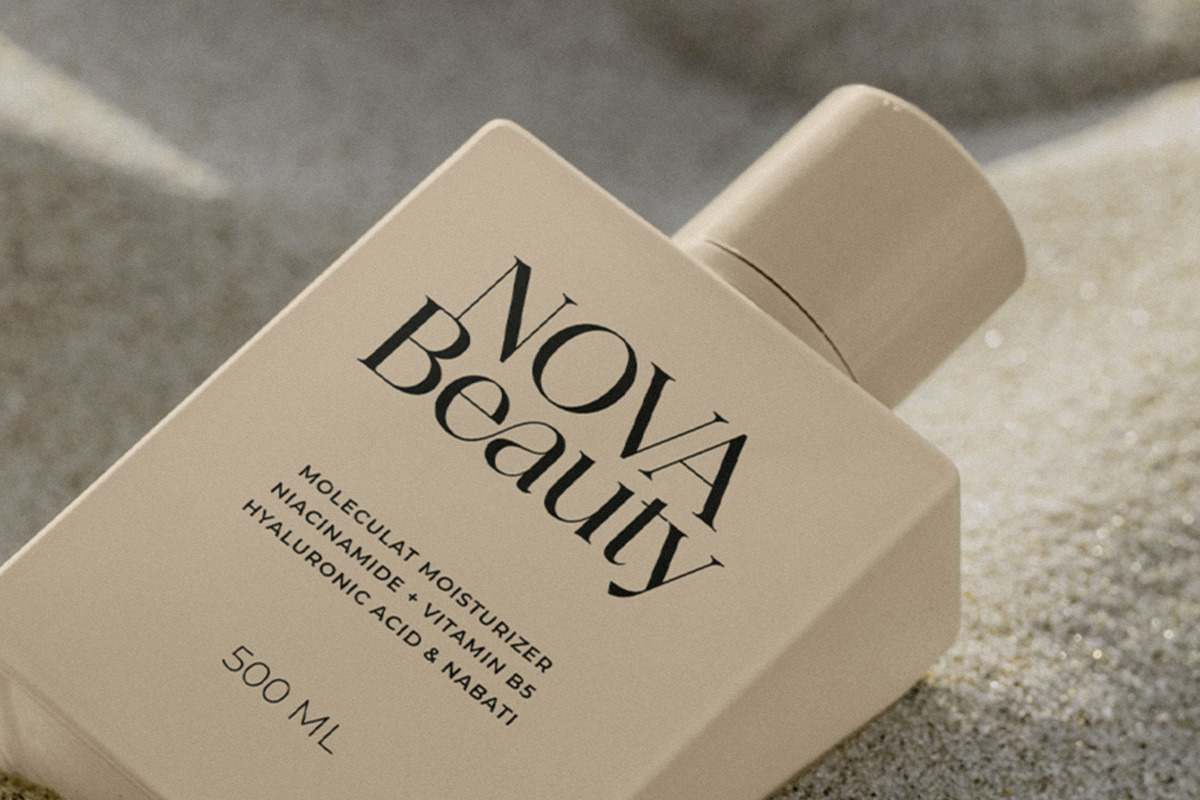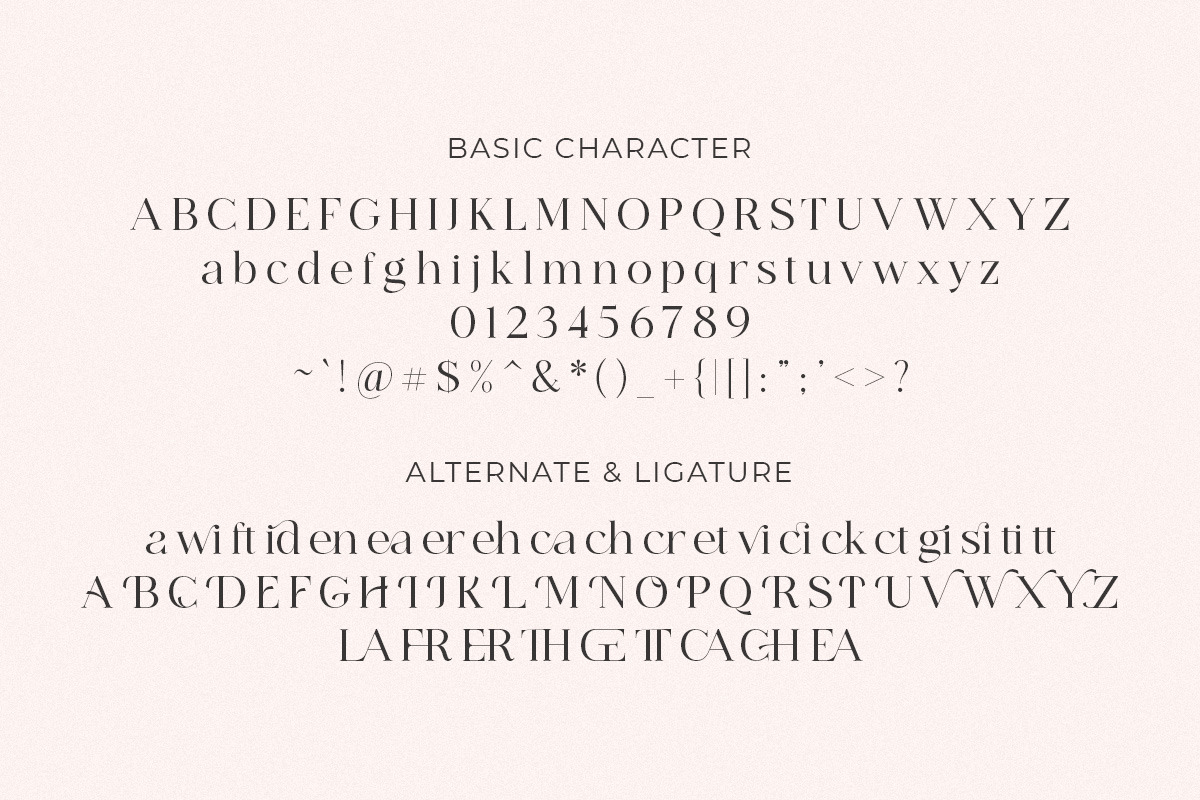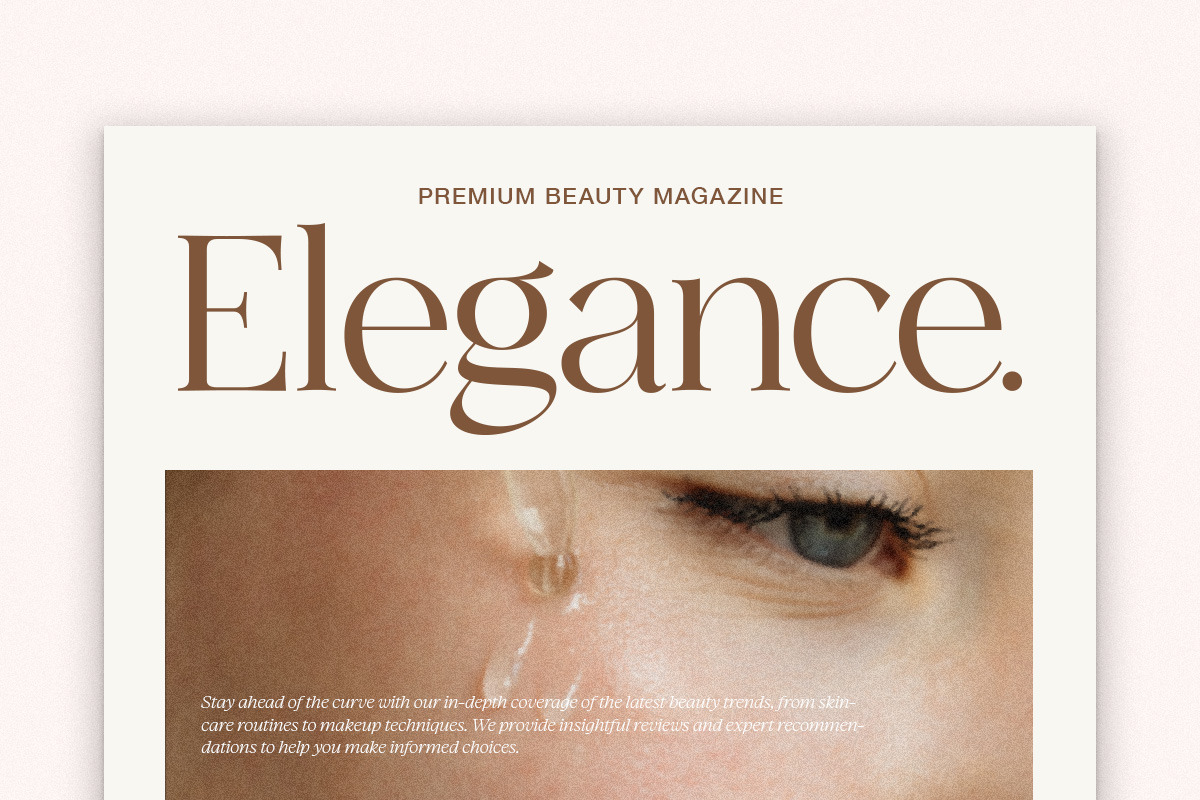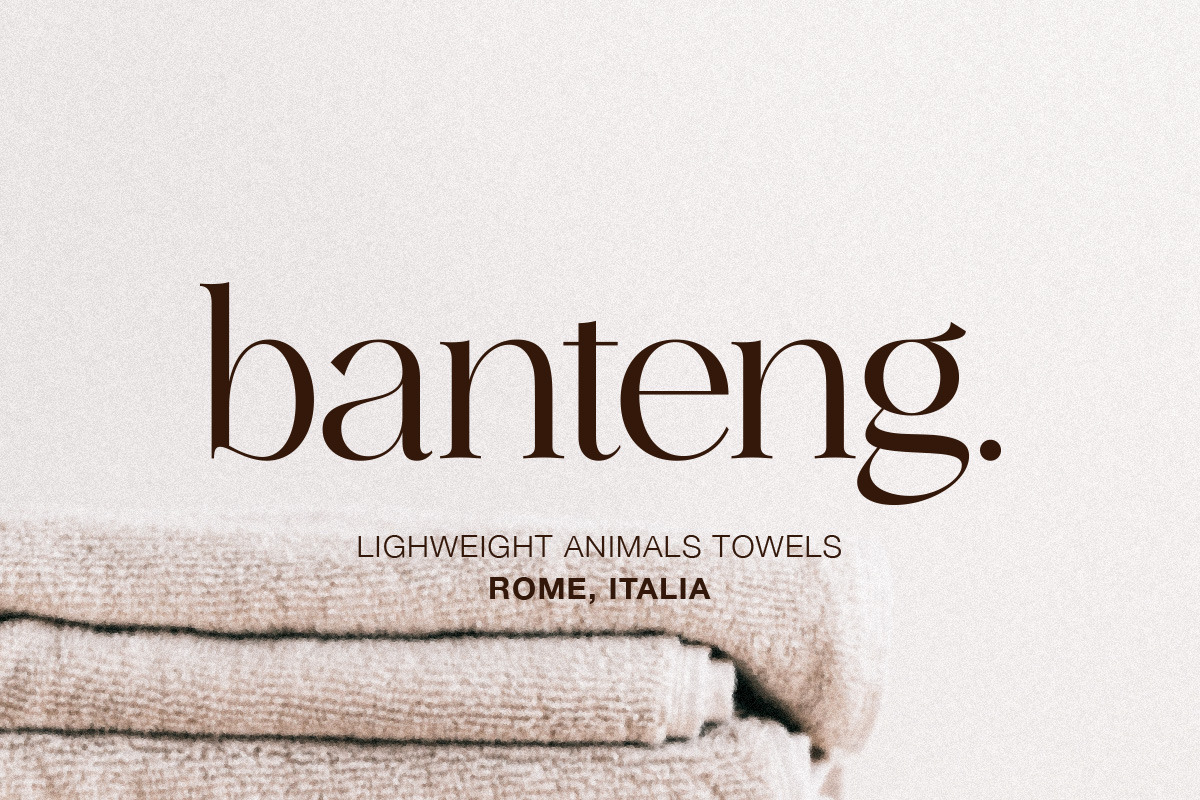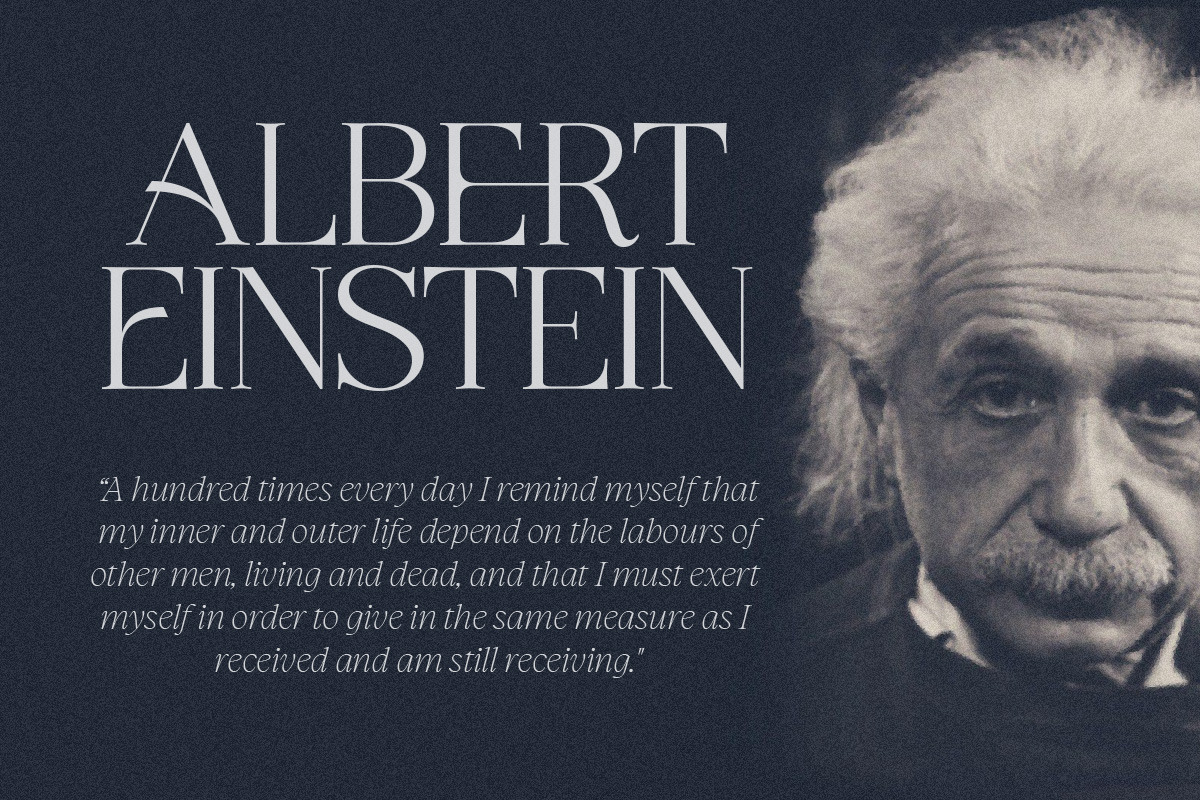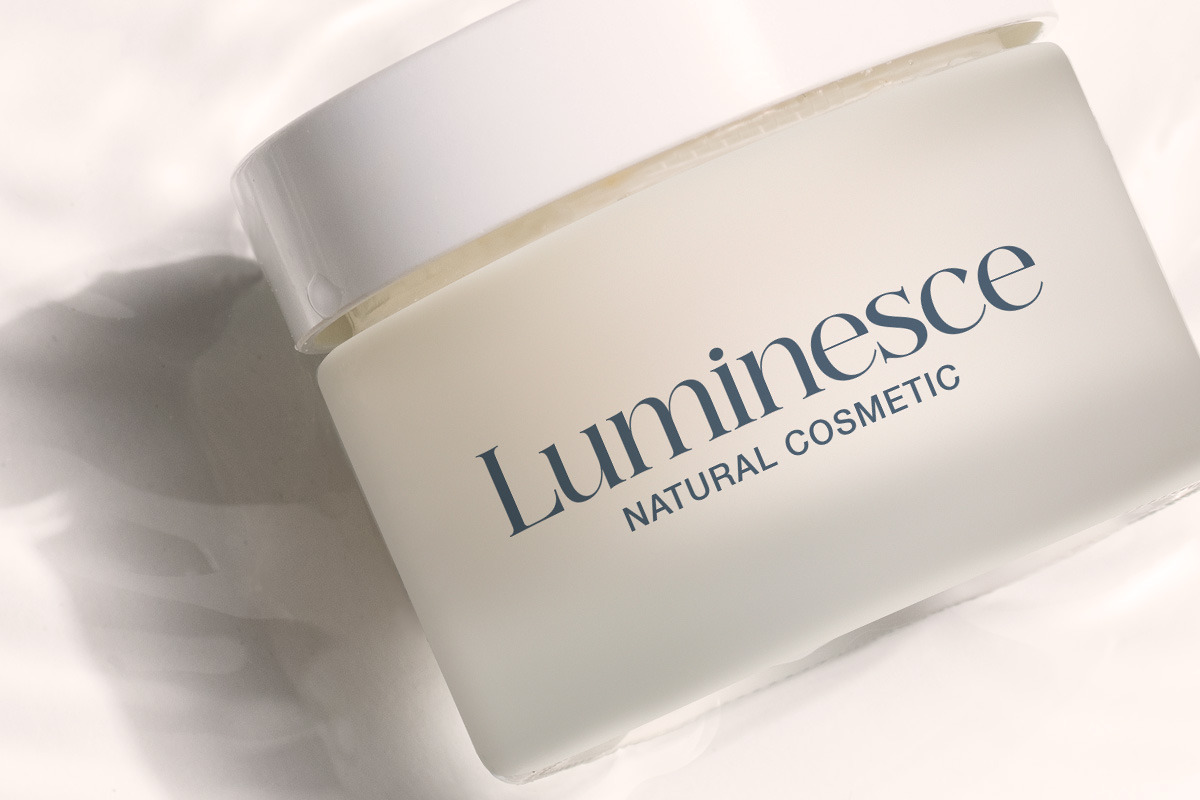
Ethereal - Elegant Serif Family
New Modern Elegant Serif Family Ethereal by Kereatype Ethereal is a Serif Family font with 9 Weight is a fashionable and modern elegant serif font with some sexy stylish extras. Ethereal by Kereatype is more than just a font; it’s a statement of contemporary sophistication. Elevate your designs and projects with the exquisite charm of Ethereal, where modernity meets elegance in perfect harmony.